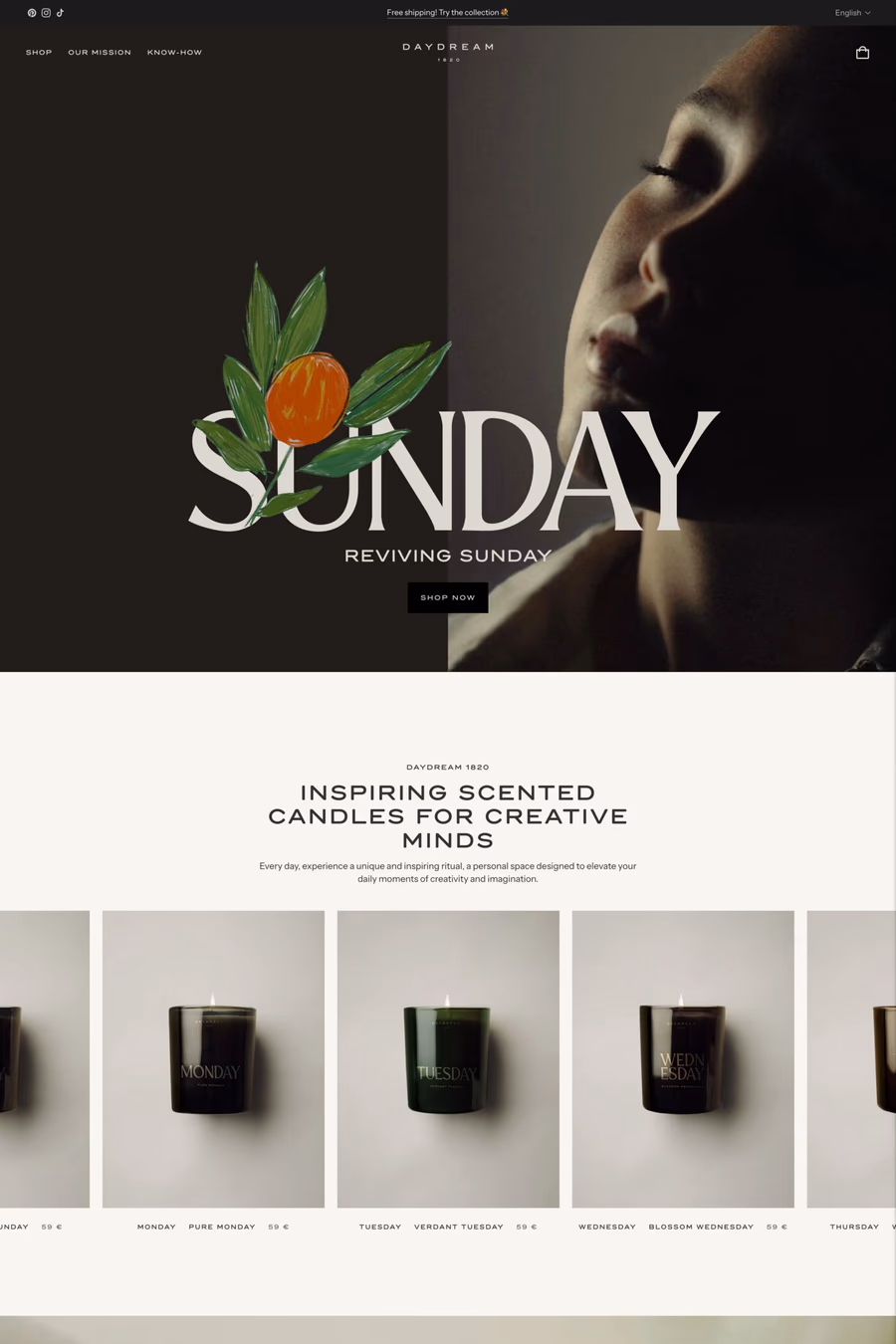
Trio Grotesk is a sans-serif typeface from Schick Toikka.
Trio Grotesk expands the single found style to three weights plus italics with Latin Extended character sets for broad language support, OpenType features including several sets of numerals, as well as arrows, ornaments and dingbats.